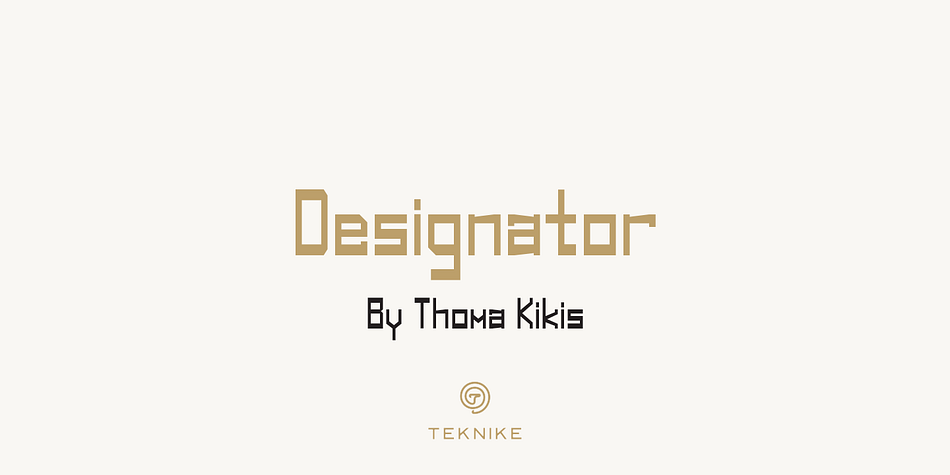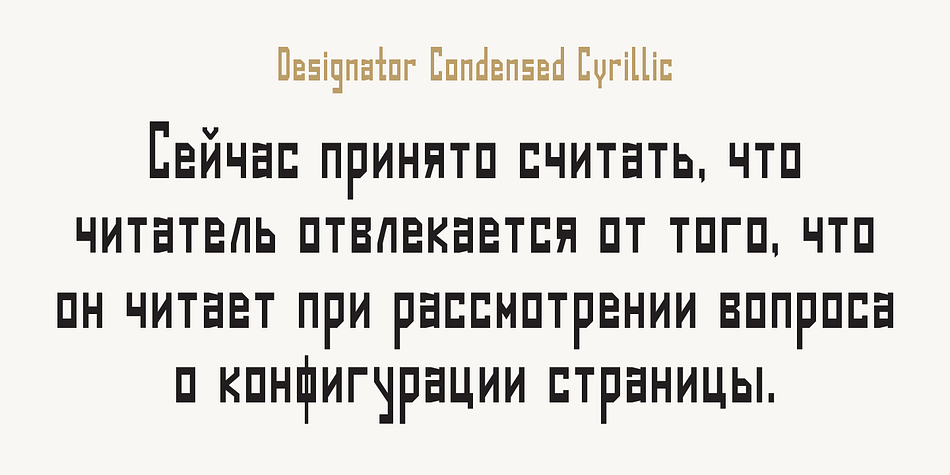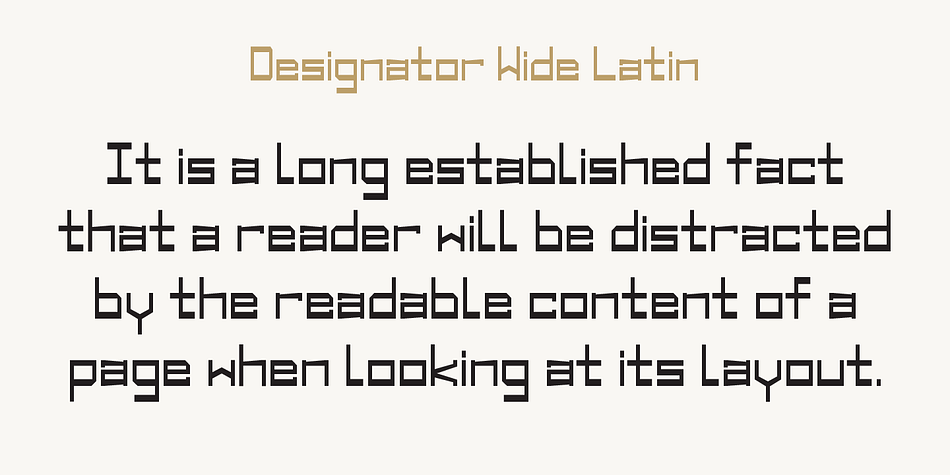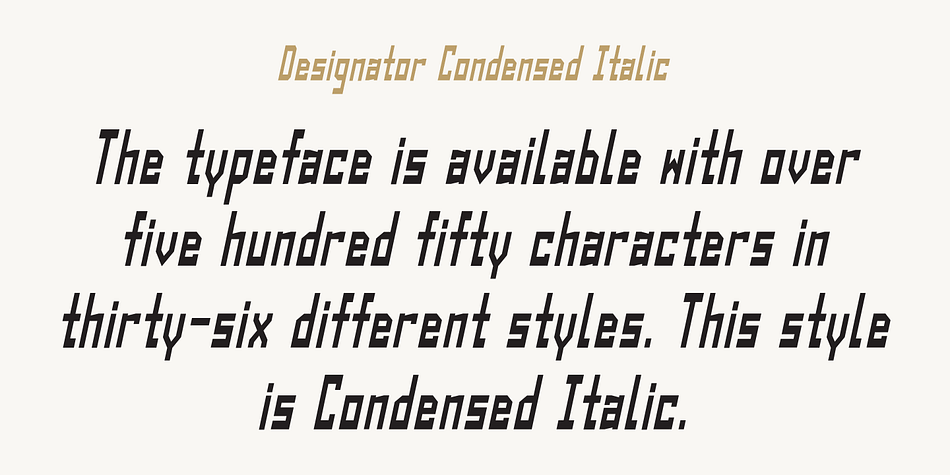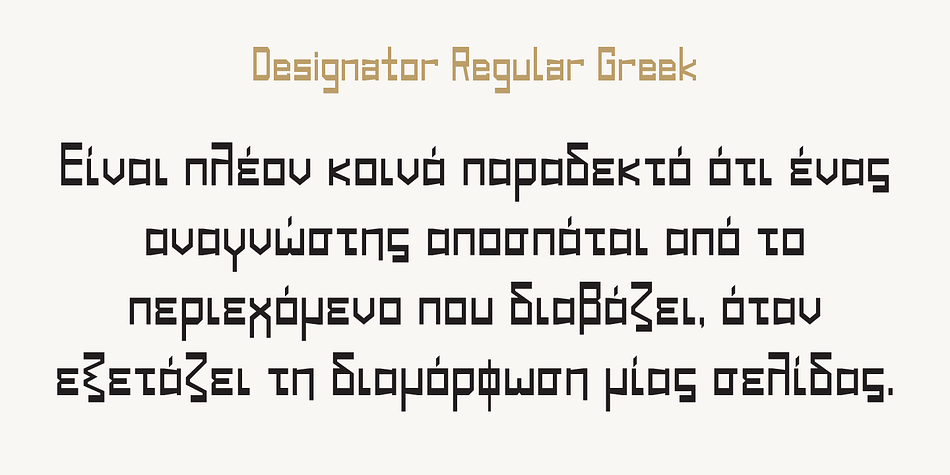
Designed by Thoma Kikis, Designator is a display font family. This typeface has thirty-six styles and was published by TEKNIKE.
Designator is a display modular monospace font. The typeface has a distinct technical geometry using sharp angled corners. Designator name is derived from Latin “designare” and means to mark, point out or to indicate. Designator is great for team sports, display work, invitations, writing, architecture, fashion, posters, logos and headings.
Designator is designed by Thoma Kikis and is currently available with Latin, Cyrillic, Hebrew and Greek character sets.